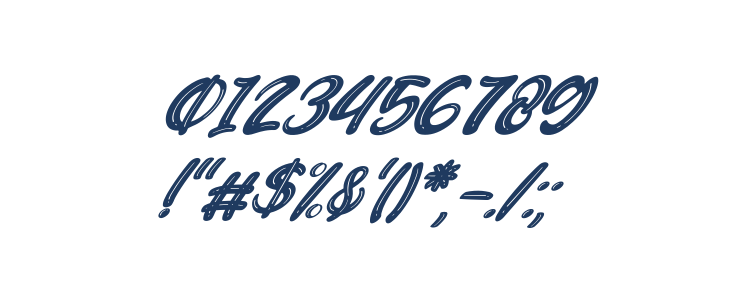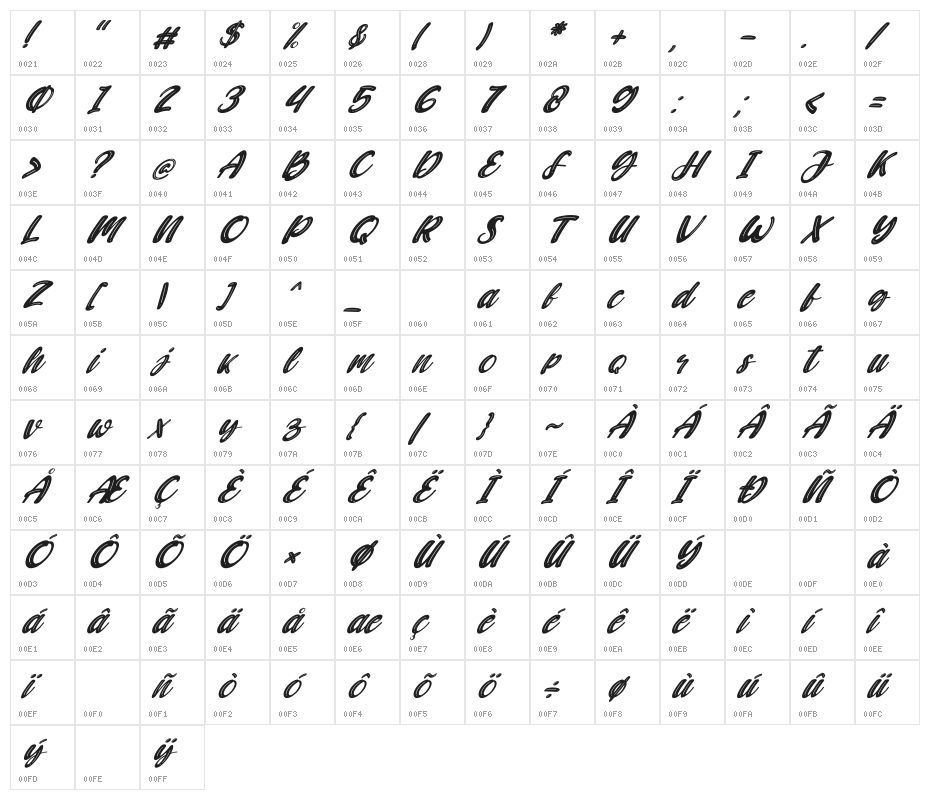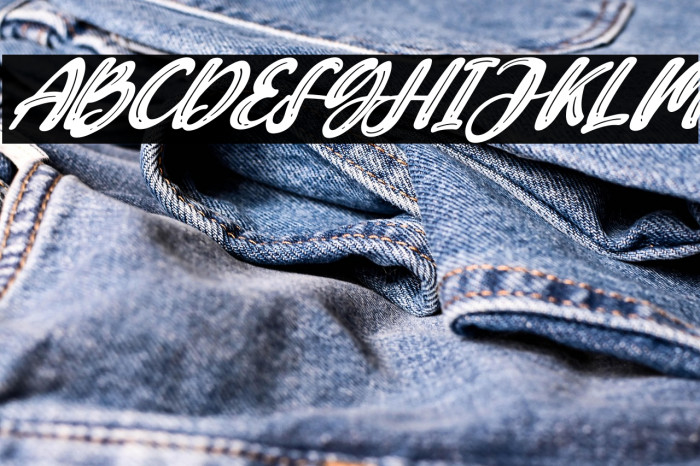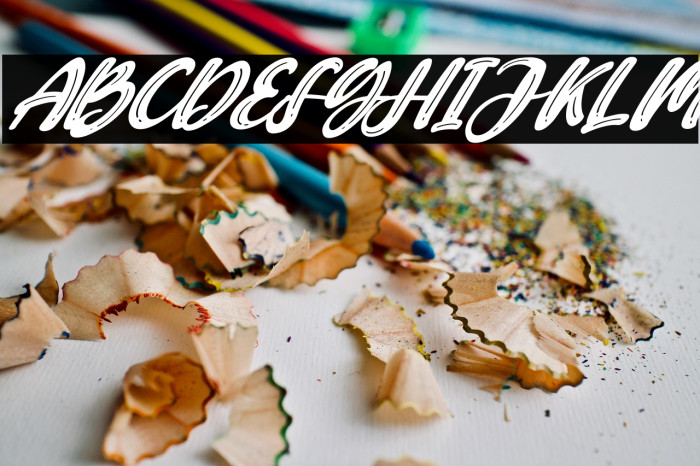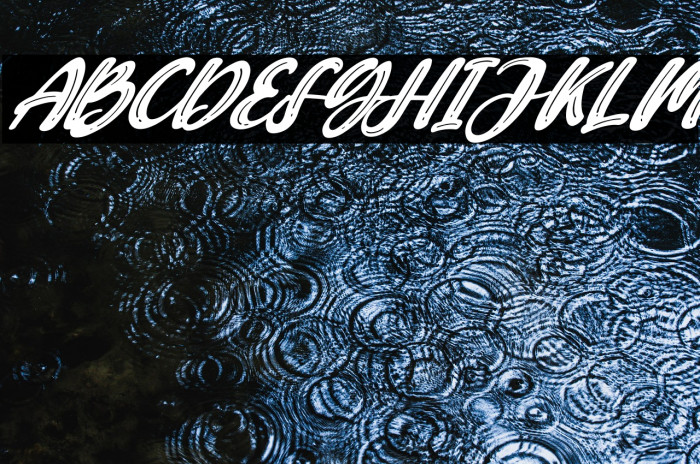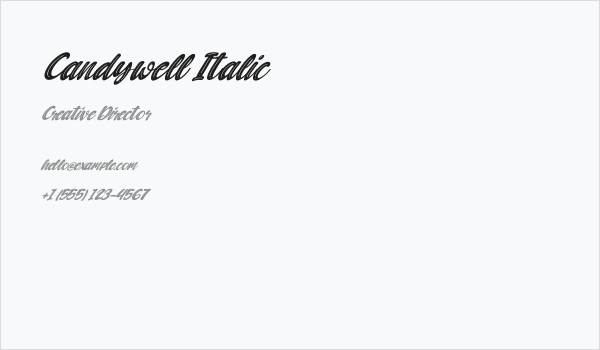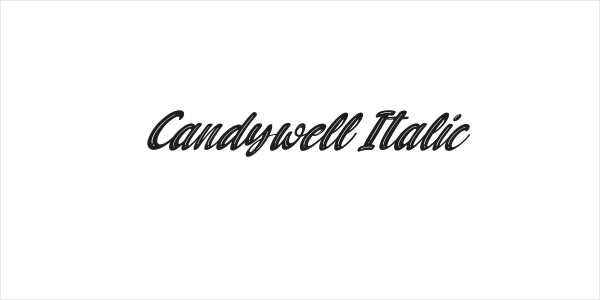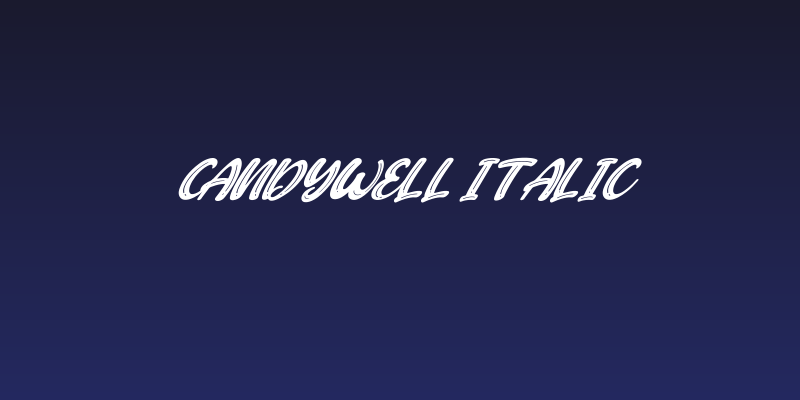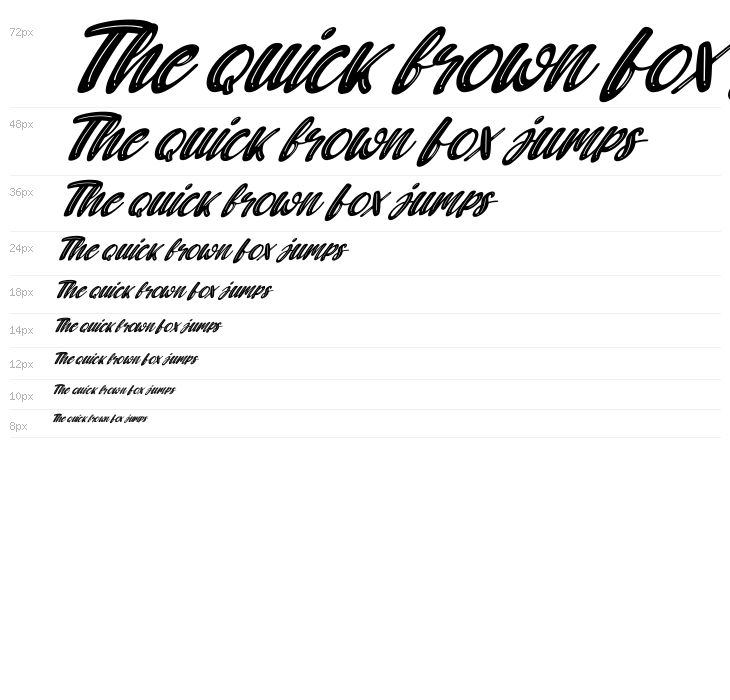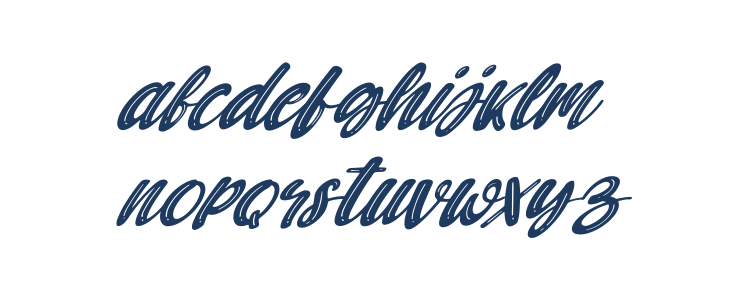
Candywell Italic Font
Candywell Italic Description
This font exudes a bold and energetic personality with its thick, flowing strokes and italicized form. The letters are connected in a cursive style, giving it a dynamic and fluid appearance. The uppercase and lowercase letters maintain a consistent style, with rounded edges and a slight slant, enhancing its playful and informal look. The numbers and special characters follow the same design principles, ensuring uniformity across all glyphs. The font's boldness and slant make it stand out, suitable for eye-catching designs.
| Proposed Projects | Ideal for branding, posters, and creative projects that require a lively and bold typeface. |